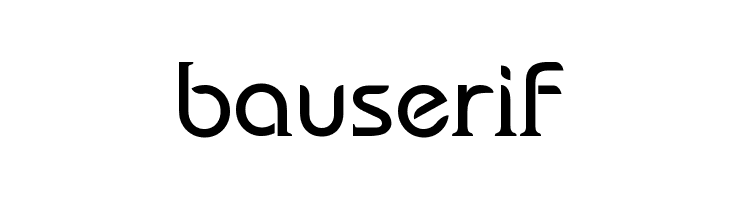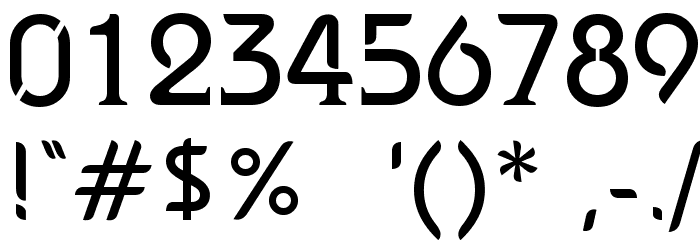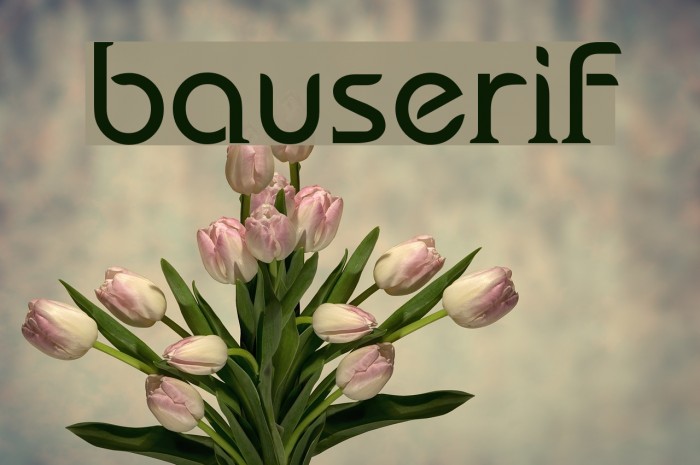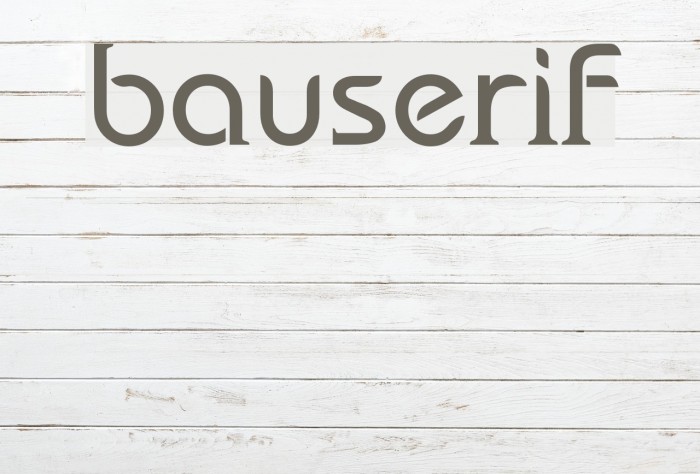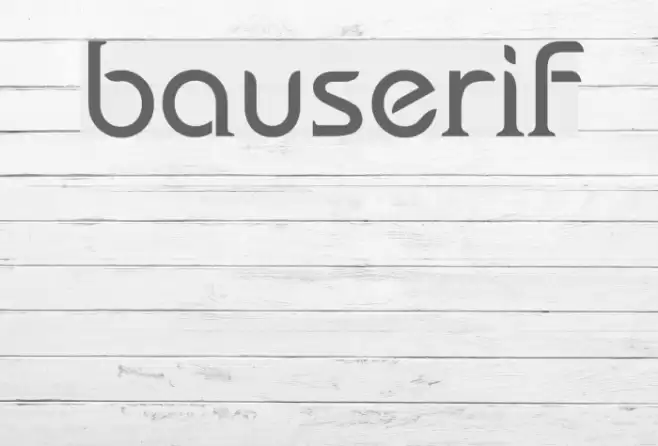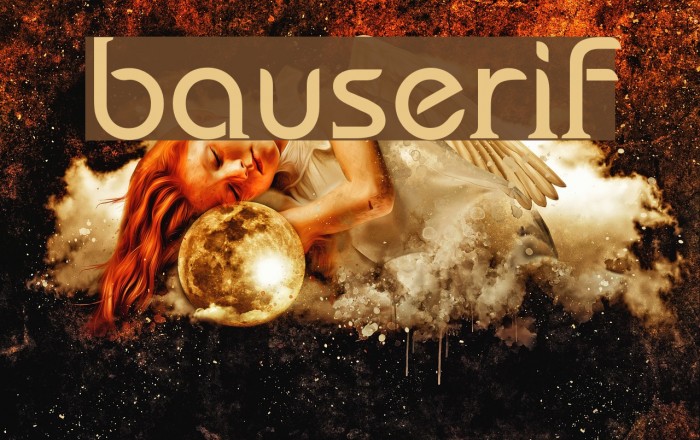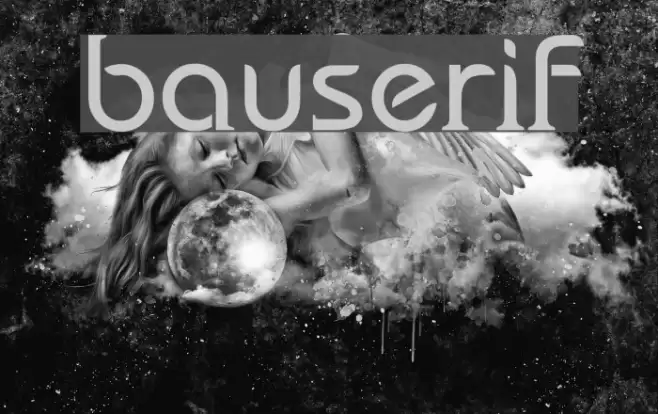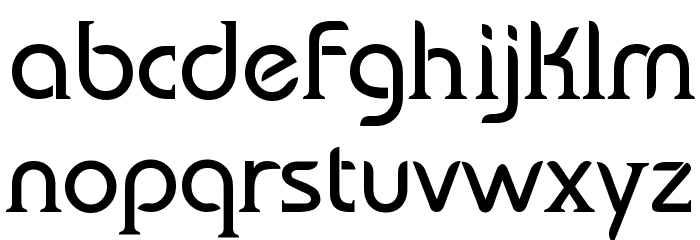
bauserif Font
bauserif Description
This font features a unique blend of modern and classic elements, characterized by its distinct serif style. The letters have a bold presence with a slight curvature that adds elegance and sophistication. The uppercase letters are particularly striking, with sharp edges and a strong vertical emphasis. The lowercase letters maintain a consistent style, offering a harmonious balance between readability and aesthetic appeal. Numbers and special characters are designed with the same attention to detail, ensuring a cohesive look across all text elements. This font is versatile, making it suitable for a variety of design projects that require a touch of class and distinction.
| Proposed Projects | Ideal for branding, editorial design, book covers, and high-end product packaging. |